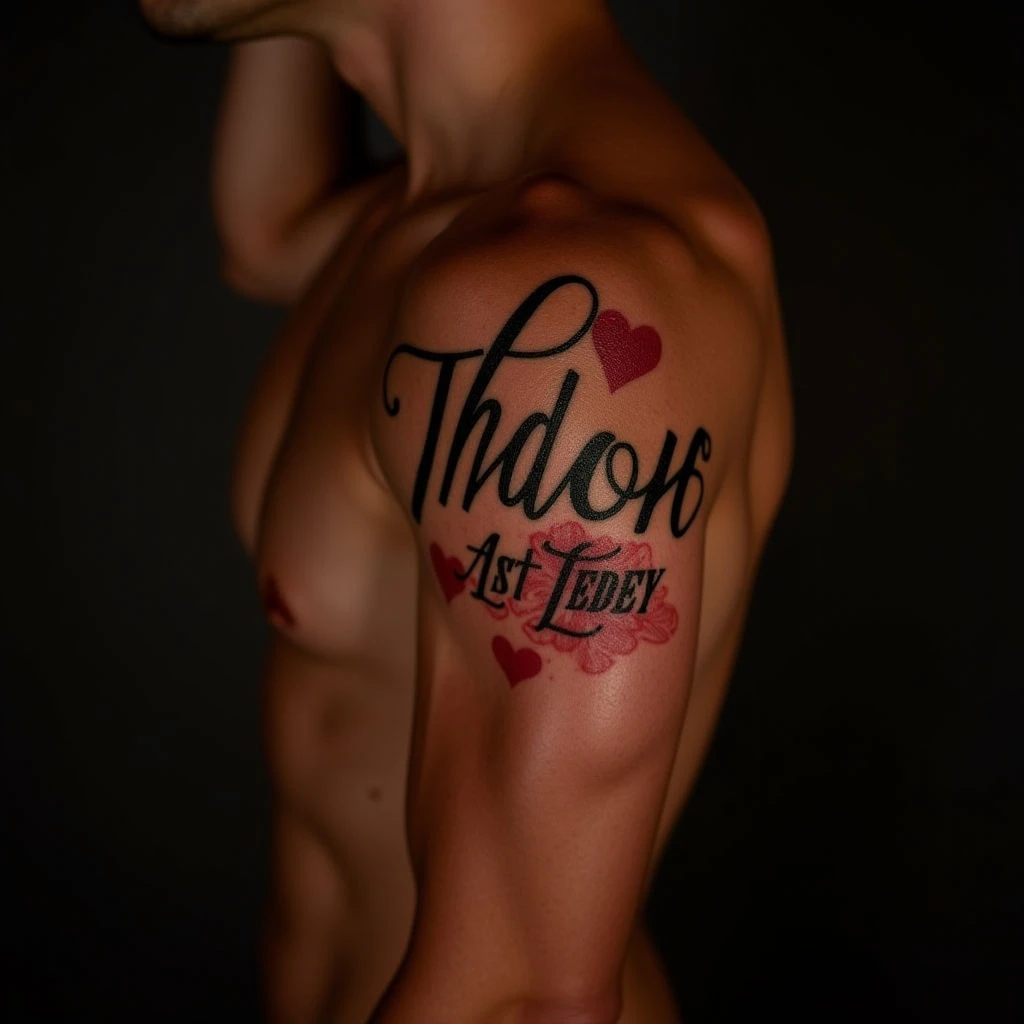
Discover captivating name tattoo font ideas for your face! Explore beautiful brown-red designs, from elegant scripts to bold typography. Find the perfect style to express yourself and make a statement.
Face Tattoos: Stunning Name Font Ideas in Brown-Red Hues
Script lettering spells “Thdor” and “Ast Ledey” across the upper shoulder, a delicate placement on the deltoid. Three red hearts—one above, two below—accentuate the names with subtle romantic flair. Varying line weights give the script dynamic flow, while soft shading around the edges creates a slightly diffused look.
This design exemplifies captivating name tattoo font ideas for face placement. The brown-red hues offer a softer alternative to traditional black ink, lending elegance and personality. Whether you prefer elegant scripts or bold typography, exploring these styles allows for unique self-expression.